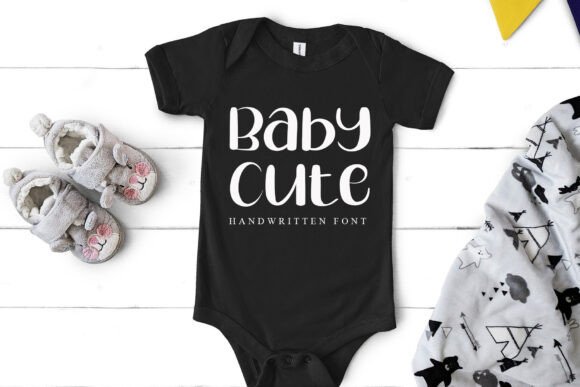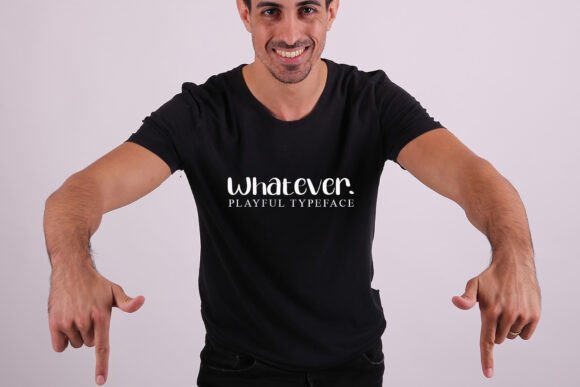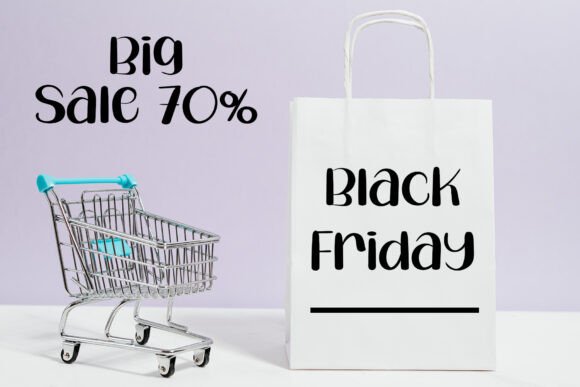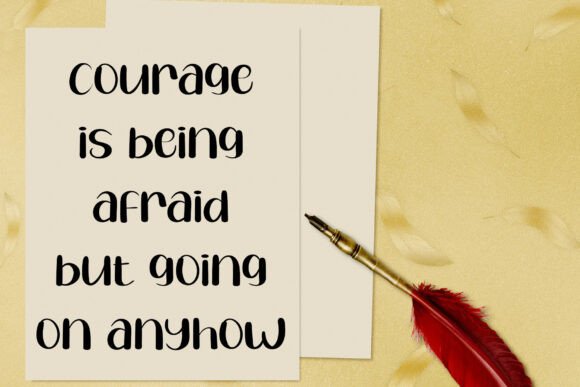
Dino Font: The Sweet and Friendly Handwritten Font for Your Creative Projects
Are you a designer or crafter looking for a font that can add a touch of warmth and personality to your creative projects? Look no further than Dino Font! This sweet and friendly handwritten font is perfect for a wide range of designs, from digital art to craft projects, and its natural and unique style makes it incredibly versatile. In this article, we’ll take a closer look at Dino Font and explore its features, benefits, and uses.
What is Dino Font?
Dino Font is a handwritten font that is designed to be both sweet and friendly. Its natural and unique style makes it perfect for adding a personal touch to your designs. Whether you’re creating digital art, crafting, or designing marketing materials, Dino Font is a great choice. The font is incredibly versatile and can be used for a wide range of projects, from fun and playful designs to more serious and professional ones.
Features of Dino Font
So, what makes Dino Font so special? Here are some of its key features:
- Handwritten style: Dino Font has a natural, handwritten style that gives it a unique and personal touch.
- Sweet and friendly: The font is designed to be sweet and friendly, making it perfect for designs that need to convey a sense of warmth and approachability.
- Versatile: Dino Font can be used for a wide range of designs, from digital art to craft projects, and everything in between.
- Easy to read: Despite its handwritten style, Dino Font is easy to read and understand, making it perfect for designs that need to communicate a message.
Benefits of Using Dino Font
So, why should you choose Dino Font for your creative projects? Here are some of the benefits of using this amazing font:
- Adds a personal touch: Dino Font adds a personal touch to your designs, making them more relatable and engaging.
- Perfect for creative projects: The font is perfect for creative projects, such as digital art, crafting, and scrapbooking.
- Unique style: The font has a unique style that will set your designs apart from others.
Uses of Dino Font
Dino Font can be used for a wide range of designs, including:
- Digital art: The font is perfect for digital art, such as illustrations, graphics, and paintings.
- Crafting: Dino Font is great for crafting projects, such as scrapbooking, card making, and journaling.
- Marketing materials: The font can be used for marketing materials, such as brochures, flyers, and posters.
- Web design: Dino Font can be used for web design, such as for headings, titles, and body text.
Tips for Using Dino Font
Here are some tips for using Dino Font in your creative projects:
- Use it for headings and titles: Dino Font is perfect for headings and titles, as it adds a touch of personality and whimsy.
- Mix it with other fonts: The font can be mixed with other fonts to create a unique and interesting design.
- Experiment with colors: Dino Font looks great in a variety of colors, so don’t be afraid to experiment and find the perfect color for your design.
In conclusion, Dino Font is a sweet and friendly handwritten font that is perfect for a wide range of creative projects. Its natural and unique style makes it incredibly versatile, and its ease of use makes it a great choice for designers and crafters of all levels. Whether you’re creating digital art, crafting, or designing marketing materials, Dino Font is a great choice. So why not give it a try and see what amazing designs you can create?